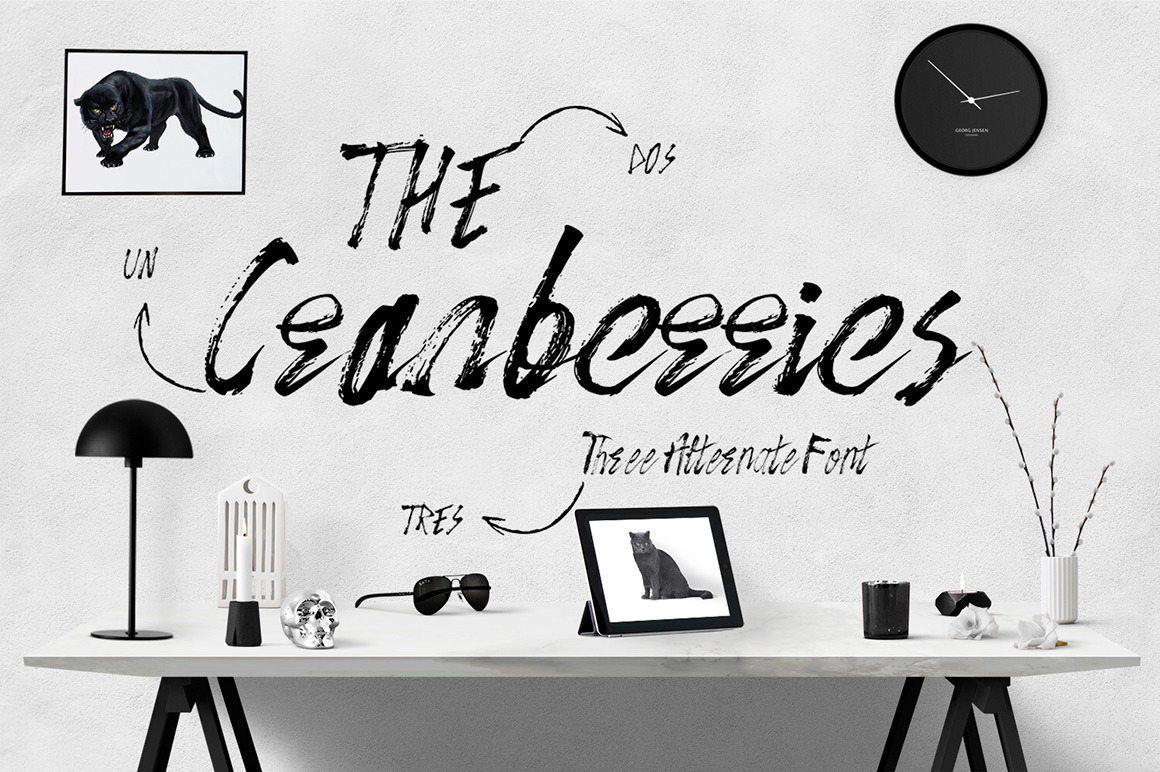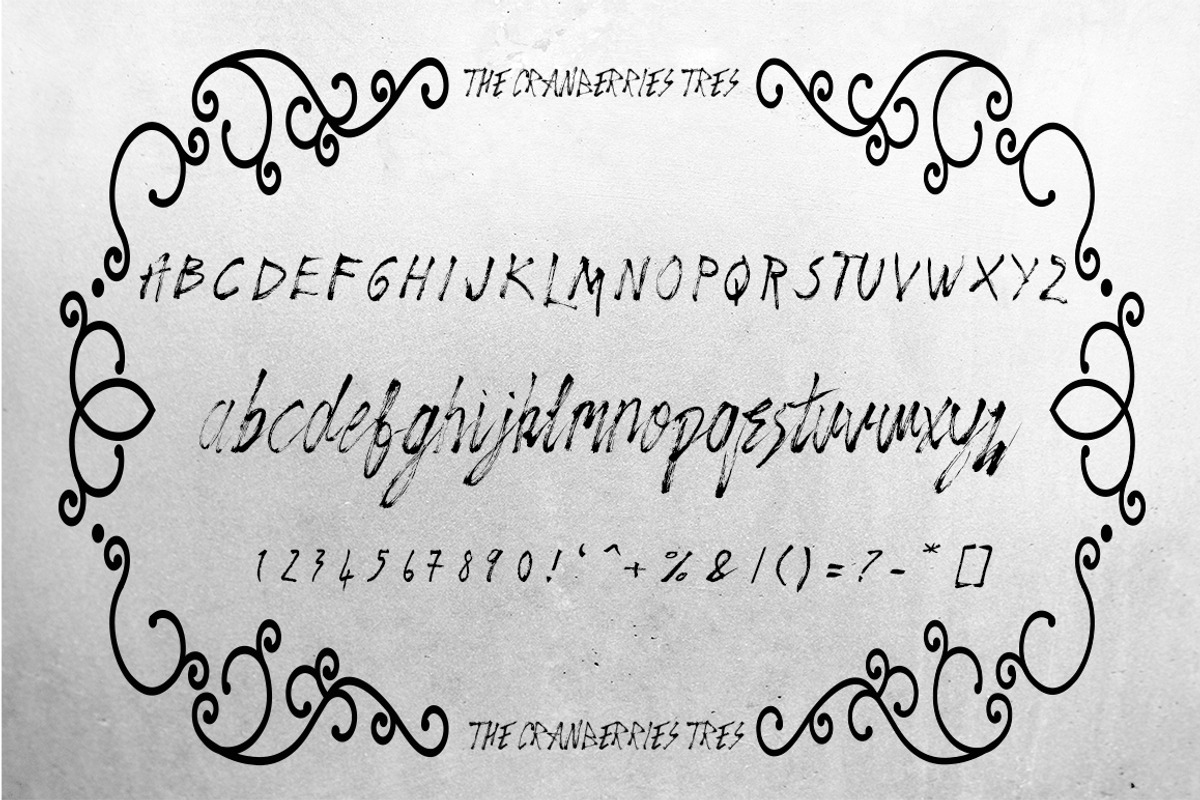
The Cranberries 3 Font
The Cranberries 3 Font:
All letters are made at once.
Natural vintage fonts.
There is no regulation contained in the letters of.
When Upparcas font emerges singularly excellent writing style.
In making logos, magazine covers, advertising fliers, available in many other areas that you want the book cover.
Experiment and see the harmony with each other fonts.